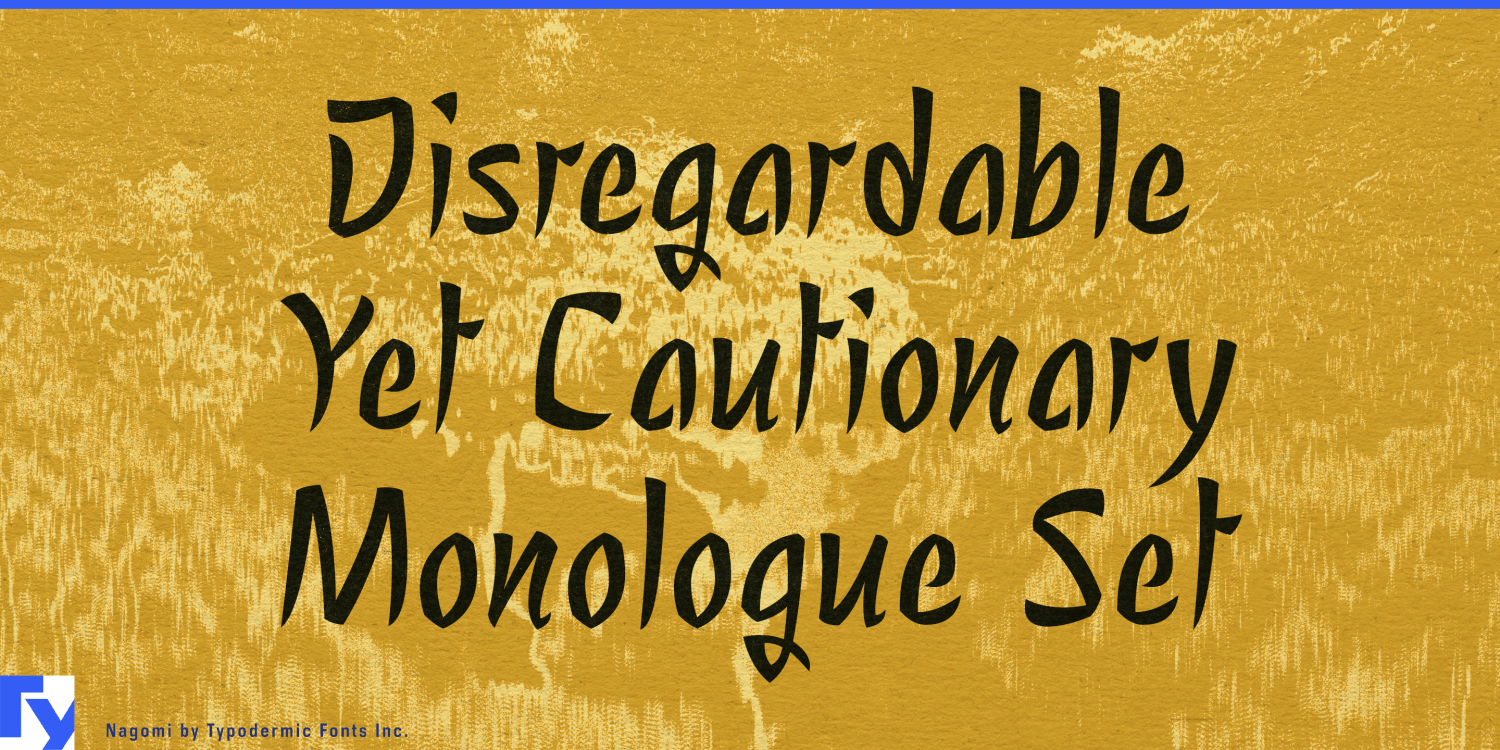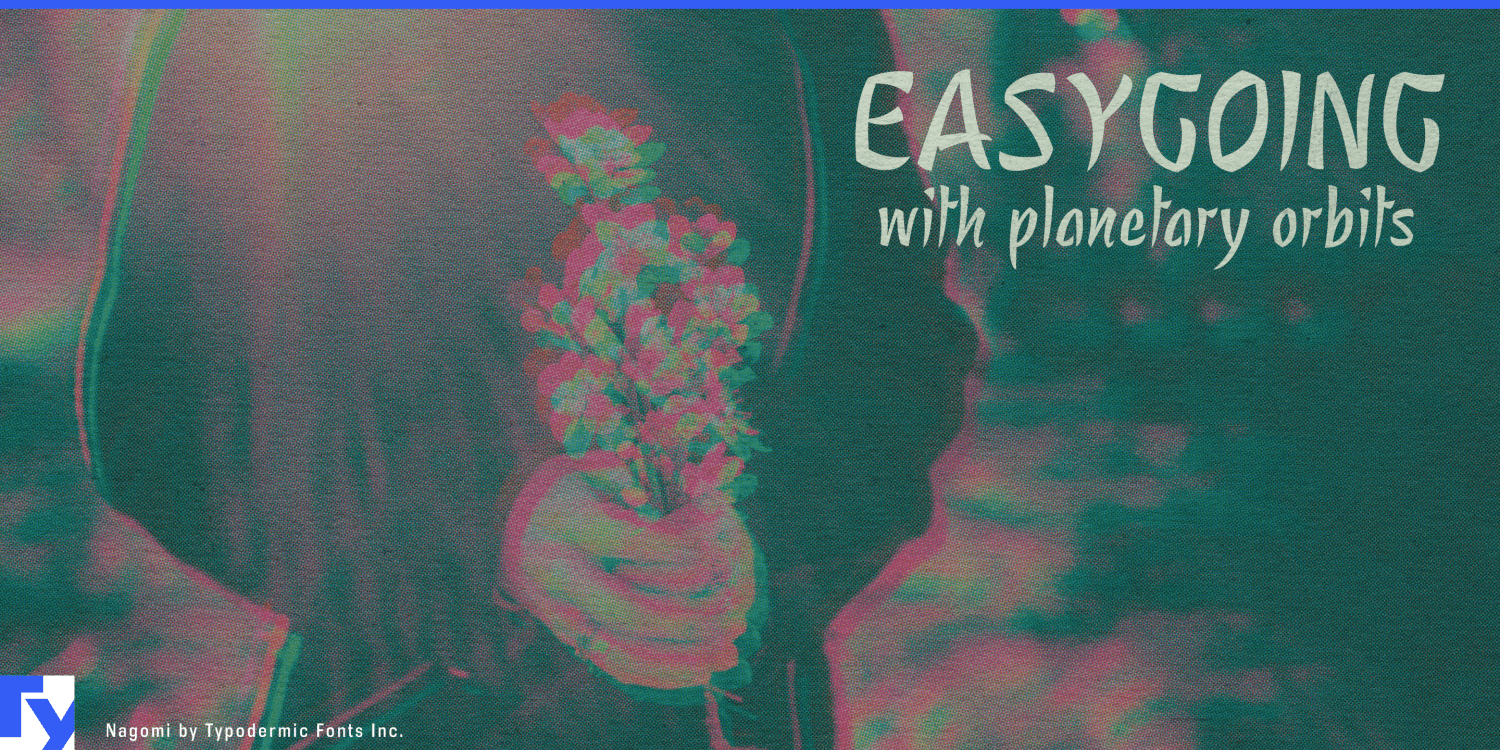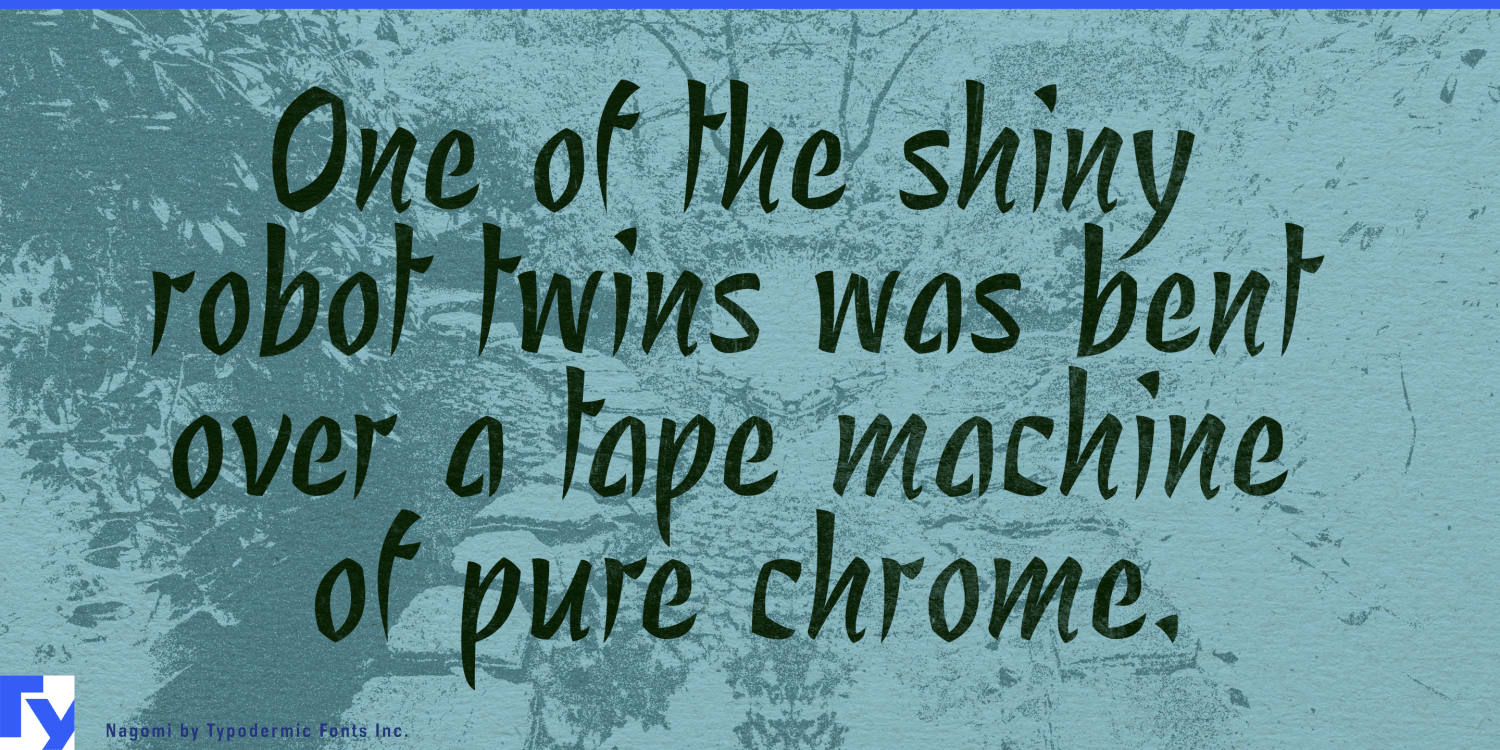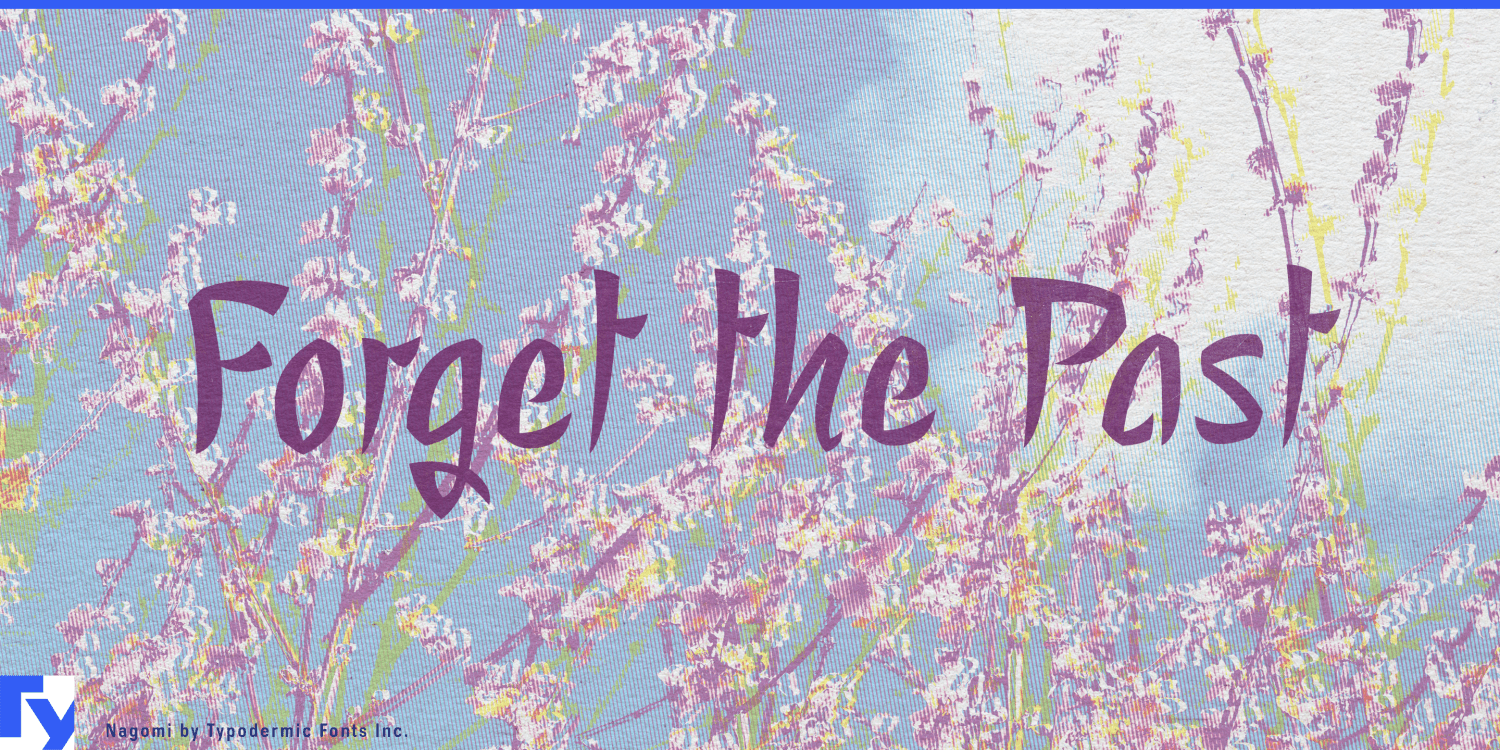
About Nagomi
Nagomi whispers its beauty across the page, a brush display typeface that captures the essence of tranquility in every stroke. This isn’t just a font; it’s a meditation in letterforms, inviting designers to pause and breathe in its serene…